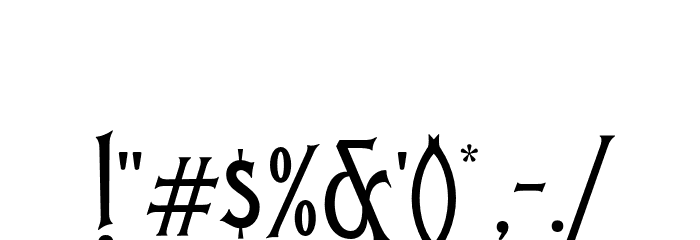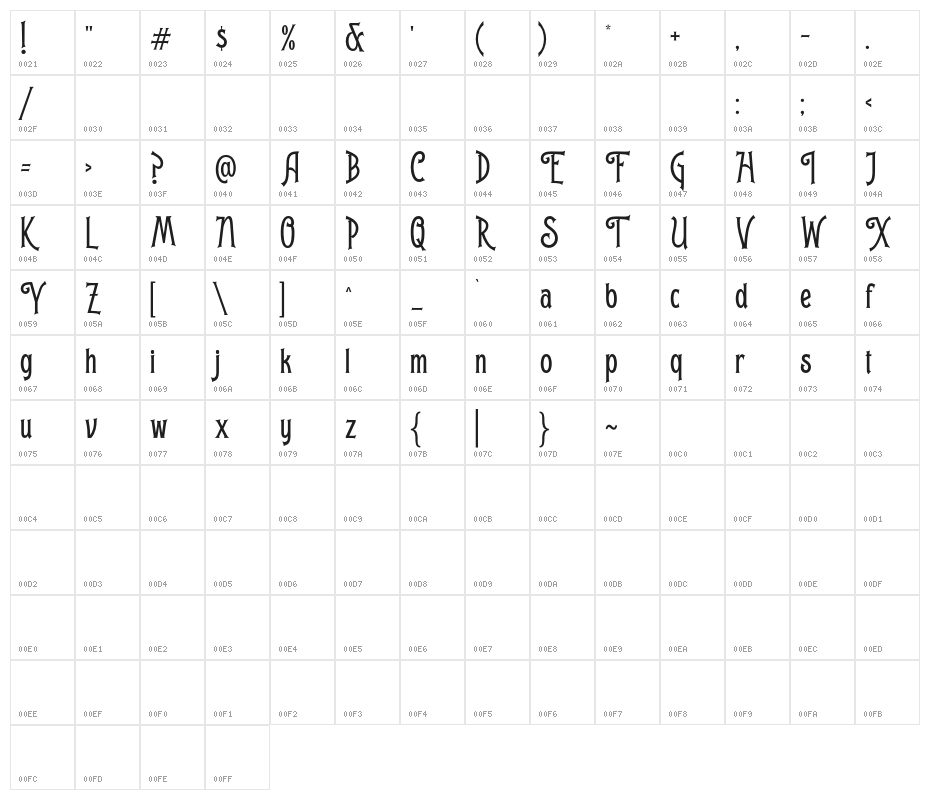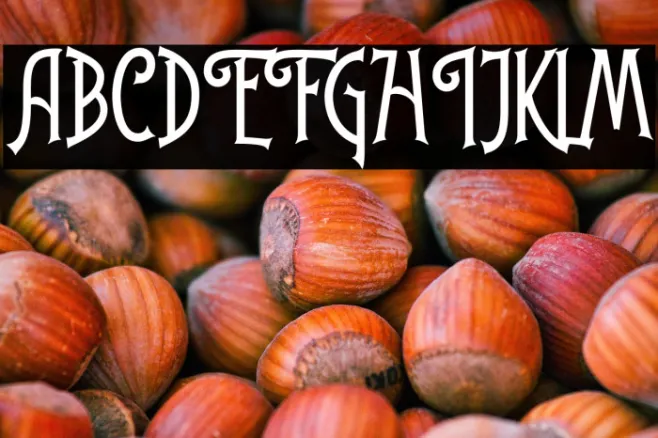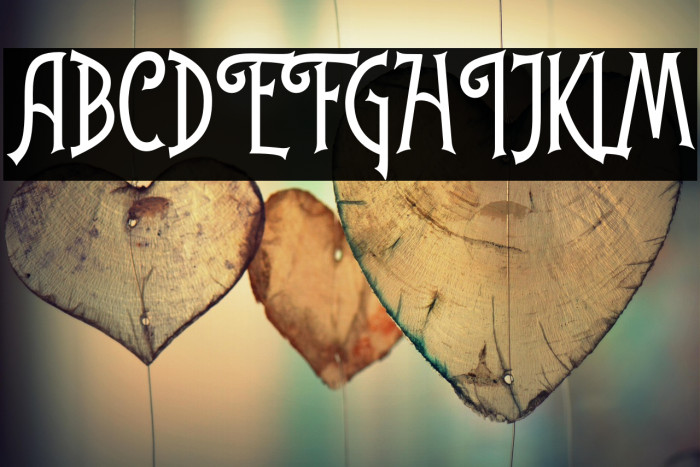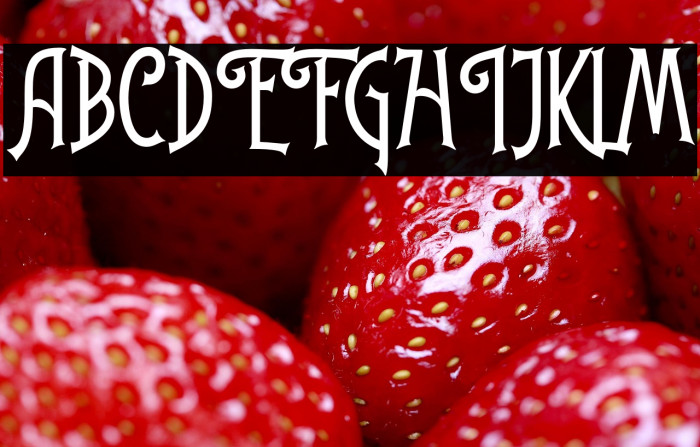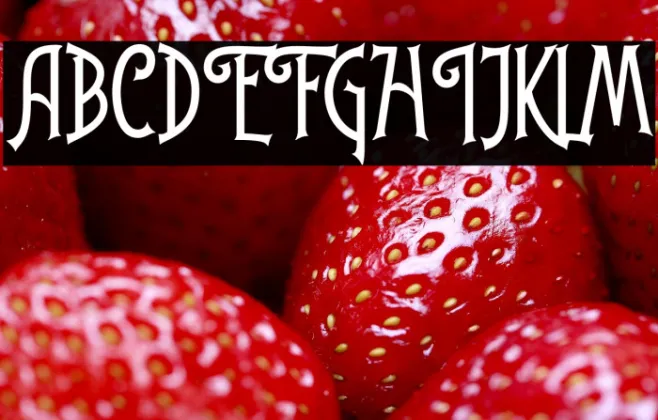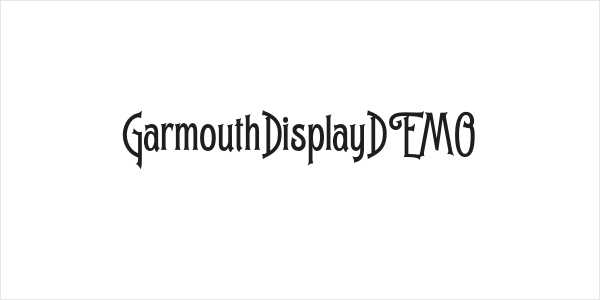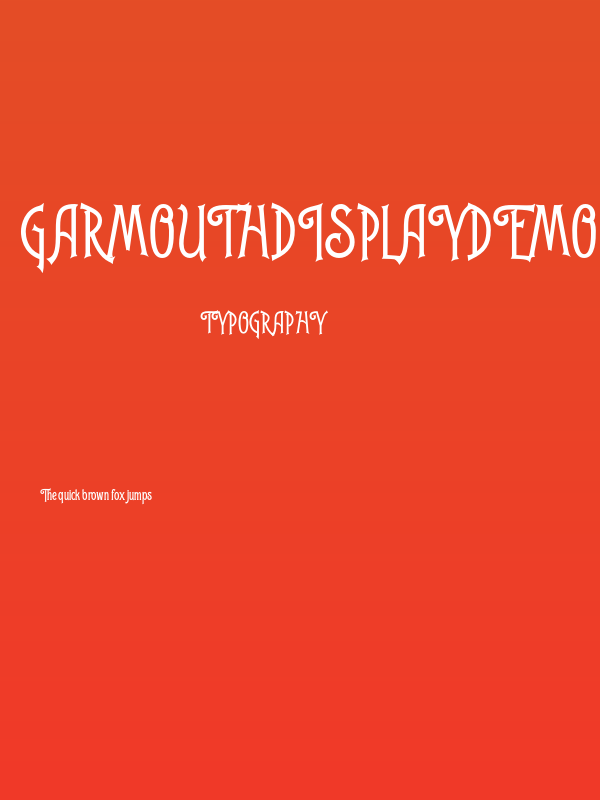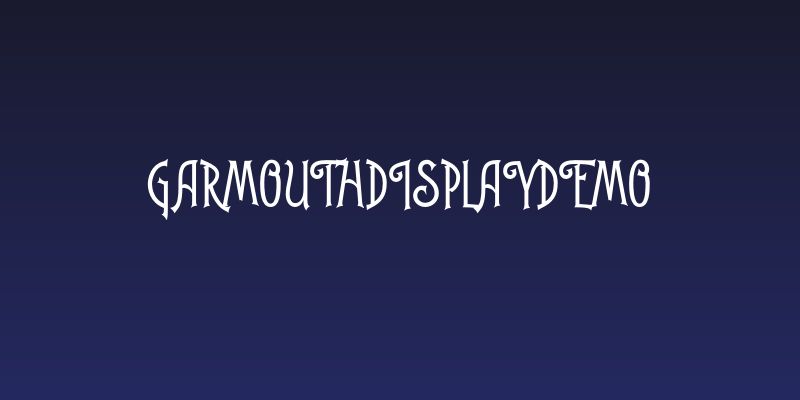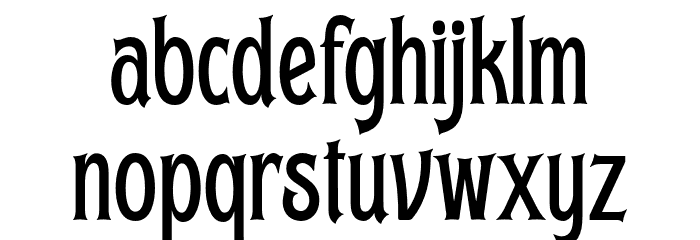
GarmouthDisplayDEMO Font
GarmouthDisplayDEMO Description
This font features a distinctive and decorative style with a unique flair in its letterforms. The uppercase letters are characterized by elegant curves and swirls, giving them a whimsical and artistic appearance. The lowercase letters maintain a similar decorative style, with consistent stroke widths and playful serifs. The numerals and special characters are designed to complement the overall aesthetic, featuring similar embellishments and curves. This font is ideal for projects that require a touch of creativity and elegance, making it suitable for artistic and decorative purposes.
Use CaseHeadlines, Logos, Invitations
Proposed ProjectsIdeal for invitations, posters, branding, and any project requiring a creative and decorative touch.